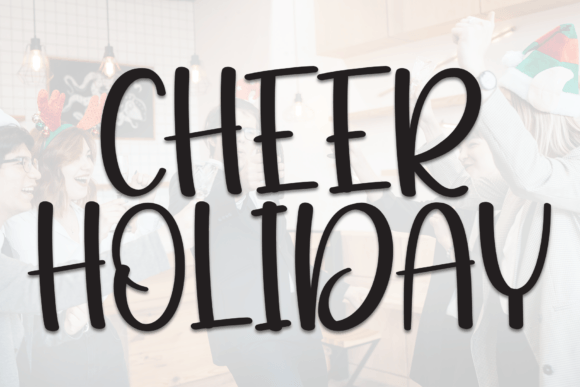
The Perfect Font for Festive Design
Have you ever been scrolling through your favorite design inspiration boards, and suddenly, a font catches your eye? For many designers, it’s that one magical moment when everything falls into place, and the perfect typography is found. For those seeking that extra special something, we’re thrilled to introduce the Cheer Holiday Font – a charmingly delightful, handwritten display font that instantly captures the heart.
This lovely font is perfect for adding a touch of whimsy and warmth to your designs. Whether it’s a wedding invitation, a greeting card, or any other project, the Cheer Holiday Font is sure to bring a sprightly splash of fun. With its endearing charm, it will give your design work a distinctive and authentic touch that’s sure to delight. For designers, this font is a valuable addition to their toolkit, providing a unique way to express their creativity and bring joy to their clients.
Cheer Holiday Font Key Features
- Unique Characteristics: The Cheer Holiday Font features a playful, handwritten design with a festive holiday theme, making it perfect for creating eye-catching Christmas and New Year’s content.
- Style Variations: The font comes with multiple style variations, including Regular, Bold, Italic, and Bold Italic, offering flexibility in design projects.
Review of Cheer Holiday Font
Overall, I think Cheer Holiday Font has some great qualities that make it a solid choice for holiday-themed designs. ✨ It has a fun, festive vibe that’s perfect for Christmas or New Year’s Eve projects. The font is highly customizable, allowing you to adjust the colors, sizes, and even add some nice animations.
- Fun and playful style that’s great for holiday projects ✨
- Highly customizable with options for colors, sizes, and animations
- Works well for both digital and print projects
- Supports a wide range of languages
- May not be as versatile for non-holiday projects ⚠️
- Lack of bold weight options for some characters
- Some characters may not be as legible at smaller sizes
Overall, I think Cheer Holiday Font is a great choice for holiday-themed designs, but it may not be the best option for more general use. If you’re looking for a fun and festive font for your holiday projects, I’d definitely recommend giving Cheer Holiday Font a try.
For optimal results, use the Cheer Holiday Font in bold or italic to add emphasis to your text.
Pair the font with a simple background to let the text shine.
The Cheer Holiday Font is perfect for:
Creating festive holiday cards and invitations.
Designing holiday-themed social media posts and ads.
Adding a touch of holiday cheer to your website or blog.